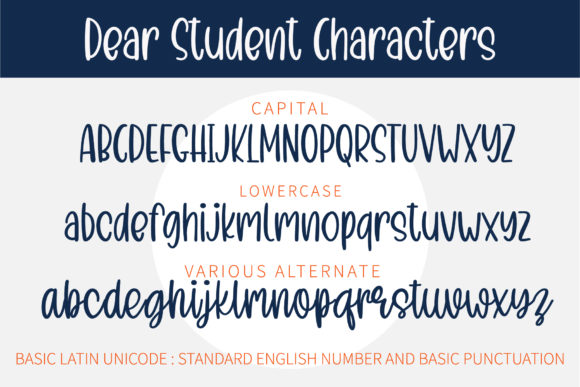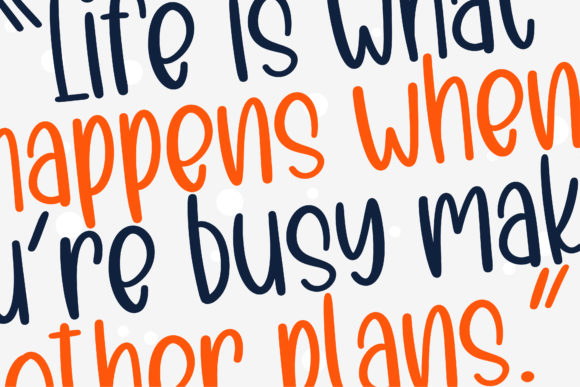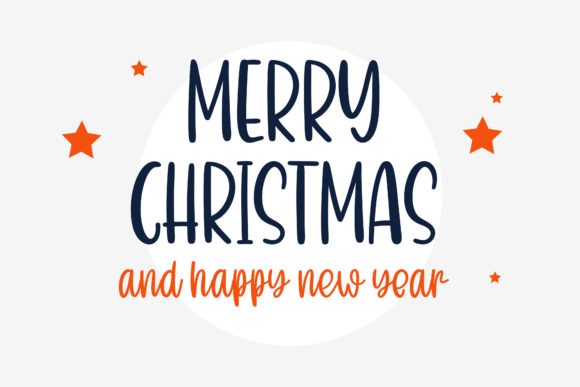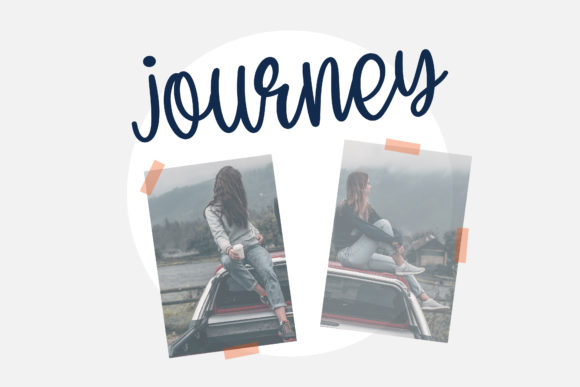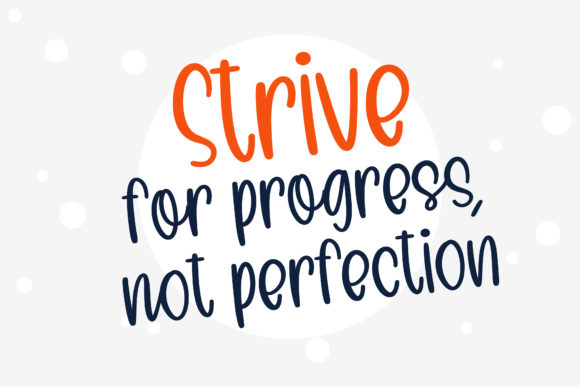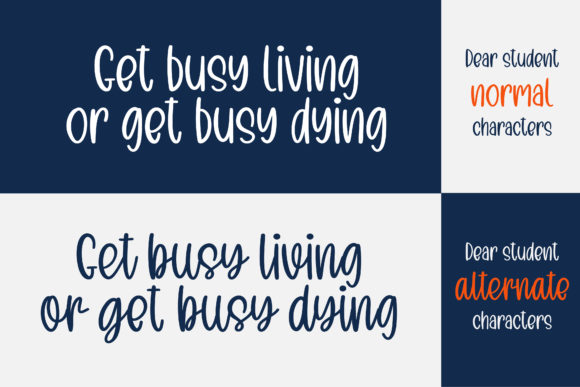
Dear Student Font
About Dear Student Font
Dear Student is a cute and natural handwritten font. Its natural and unique style makes it incredibly fitting to a large pool of designs.